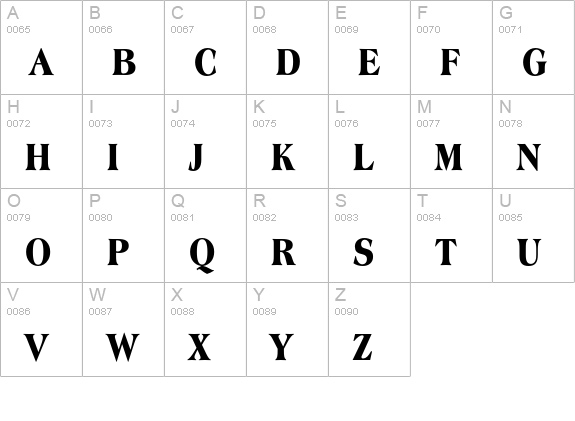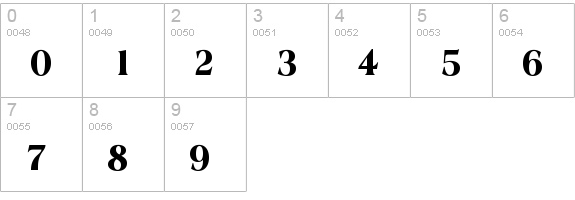
Americana Extra Bold Condensed is a strong, high-contrast, condensed-width variant in the Americana typeface family \xE2\x80\x94 well suited to headlines, attention-grabbing titles, and strong calls-to-action.
Americana Extra Bold Condensed is a striking and robust typeface that exudes a sense of strength and authority. With its bold weight and condensed design, this font commands attention and makes a bold statement in any design project. The clean lines and sharp edges of Americana Extra Bold Condensed lend a modern and contemporary feel, making it perfect for headlines, posters, branding, and other display purposes. What sets Americana Extra Bold Condensed apart is not only its visual impact but also its versatility. Whether you're looking to create a bold and powerful headline or a sleek and modern logo, this font has you covered. Its condensed form allows for efficient use of space while still maintaining readability and impact. And the best part? Americana Extra Bold Condensed is available for free download at FontsMarket.com. This means you can easily access this versatile and eye-catching font for your design projects without breaking the bank. So why wait? Download Americana Extra Bold Condensed today and take your designs to the next level.